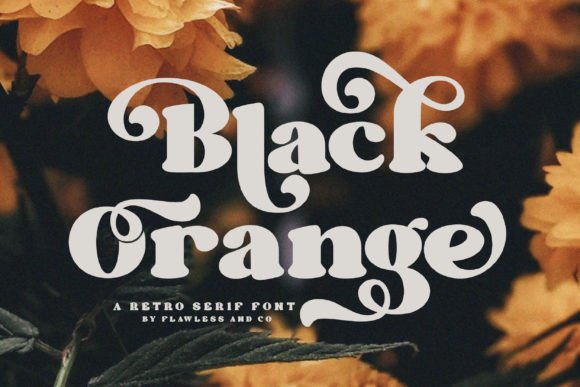
Introducing “Black Orange” – A Retro Serif Font
Journey back in time to the classic and timeless era of design with “Black Orange,” a captivating retro serif font that exudes the essence of vintage charm. With its elegant serifs and distinctive character, “Black Orange” brings a touch of nostalgia and sophistication to your creative projects.
Key Features of Black Orange Font
• Retro Serif Design: “Black Orange” boasts a classic serif design that instantly transports you to a bygone era. Its elegant and refined serifs add a touch of sophistication to any design.
• PUA Encoding: This font is PUA encoded, which means you can access all of the amazing glyphs and ligatures with ease. This makes it incredibly versatile and convenient to use.
• Distinctive Character: The font’s unique character and charm make it perfect for projects that require a touch of nostalgia and classic elegance.
• Timeless Appeal: “Black Orange” has a timeless appeal that ensures your designs will remain relevant and stylish for years to come.
Uses of Black Orange Font
“Black Orange” is an incredibly versatile font that can be used in a wide range of creative projects. Here are some ideas to get you started:
• Branding and Logo Design: Create stunning logos and brand identities with “Black Orange.” Its classic and sophisticated design makes it perfect for businesses that want to convey a sense of tradition and elegance.
• Print Design: Use “Black Orange” in your print designs, such as brochures, flyers, and posters, to add a touch of vintage charm and sophistication.
• Digital Design: “Black Orange” is also perfect for digital designs, such as website headers, social media graphics, and email marketing campaigns.
• Packaging Design: Add a touch of classic elegance to your packaging designs with “Black Orange.” Its distinctive character and charm make it perfect for product labels, packaging, and more.
Benefits of Using Black Orange Font
There are many benefits to using “Black Orange” in your creative projects. Here are some of the most significant advantages:
• Unique and Distinctive: “Black Orange” is a unique and distinctive font that will help your designs stand out from the crowd.
• Timeless Appeal: The font’s timeless appeal ensures that your designs will remain relevant and stylish for years to come.
• Easy to Use: “Black Orange” is PUA encoded, making it incredibly easy to use and access all of its amazing glyphs and ligatures.
• Versatile: The font is incredibly versatile and can be used in a wide range of creative projects.
Tips for Using Black Orange Font
Here are some tips for using “Black Orange” in your creative projects:
• Pair it with Modern Fonts: Pair “Black Orange” with modern fonts to create a stunning contrast and add visual interest to your designs.
• Experiment with Colors: Experiment with different colors to find the perfect combination that complements the font’s classic and sophisticated design.
• Use it for Headings: Use “Black Orange” for headings and titles to add a touch of elegance and sophistication to your designs.
• Don’t Overuse it: Don’t overuse “Black Orange” in your designs. Use it sparingly to create a lasting impact and add visual interest.
“Black Orange” is a captivating retro serif font that exudes the essence of vintage charm. With its elegant serifs and distinctive character, it’s perfect for creative projects that require a touch of nostalgia and sophistication. Its PUA encoding makes it easy to use, and its timeless appeal ensures that your designs will remain relevant and stylish for years to come.